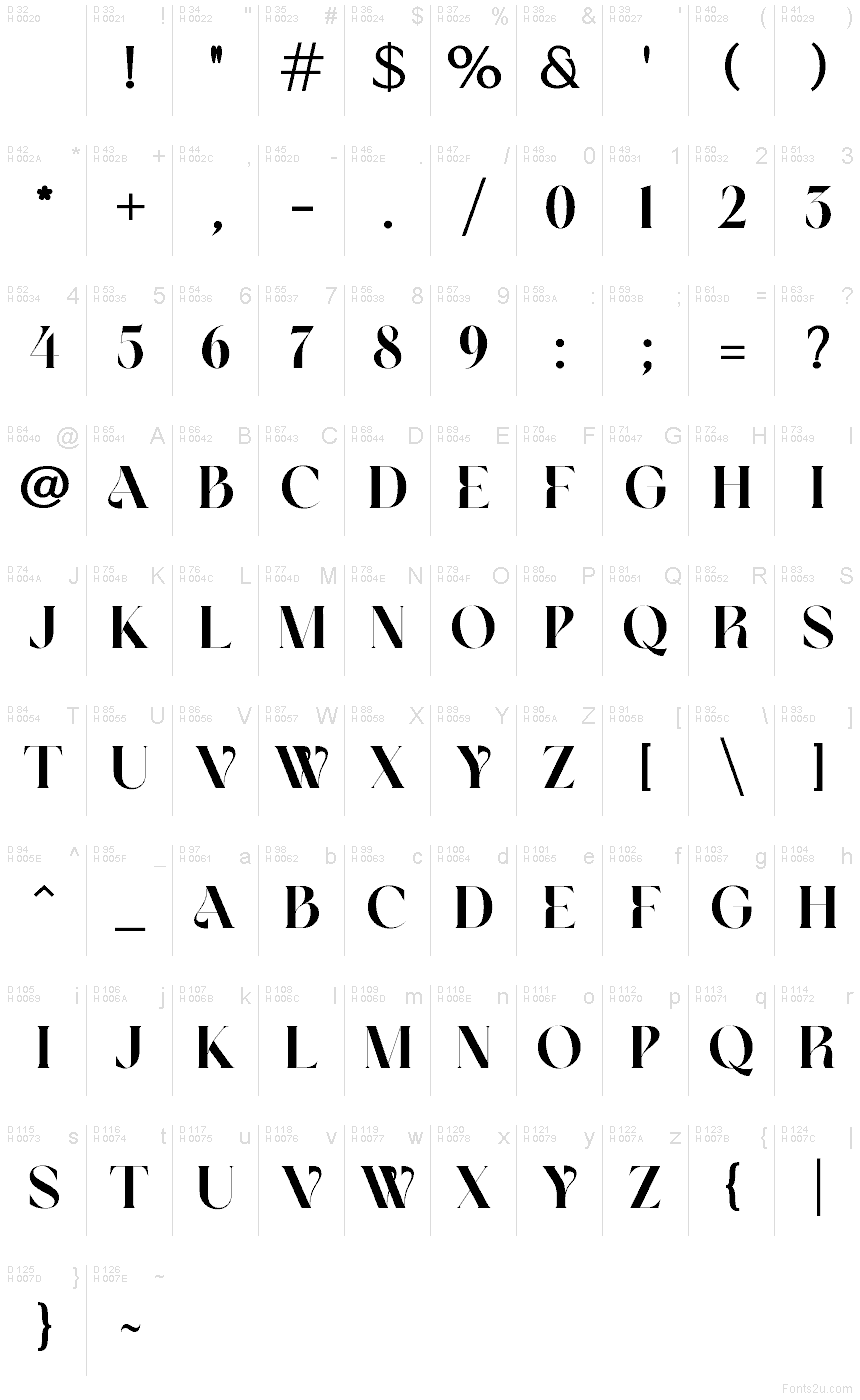
Walker
Walker font by Graphicxell is a free decorative serif typeface. Its voice comes from sculpted cuts that slice through thick, inky curves, creating a rhythm of light and shadow that feels both elegant and a little rebellious. Letters sway with ribbon-like movement, then snap to sharp edges, so headlines look carved rather than typed—confident, tactile, and unmistakable.
Using Walker, your branding carries drama without shouting. It shines on fashion marks, editorial mastheads, luxury packaging, event posters, album art, and boutique logos, where a single word needs presence. Generous spacing lets this free font breathe at larger sizes. Pair it with a quiet, modern sans for body copy to keep the spotlight on Walker’s sculptural forms.